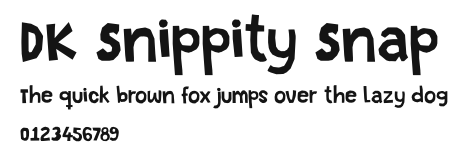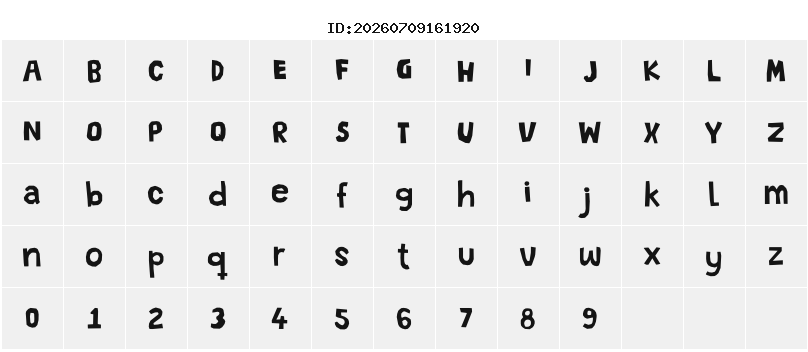
DK Snippity Snap Preview
• Font Name: DK Snippity Snap
• Designer: David Kerkhoff
• Manufacturer: David Kerkhoff
About DK Snippity Snap.otf
DK Snippity Snap.otf is a modern, elegant sans-serif font designed for ultimate readability and visual harmony. Perfect for branding, headlines, web design, and print materials.